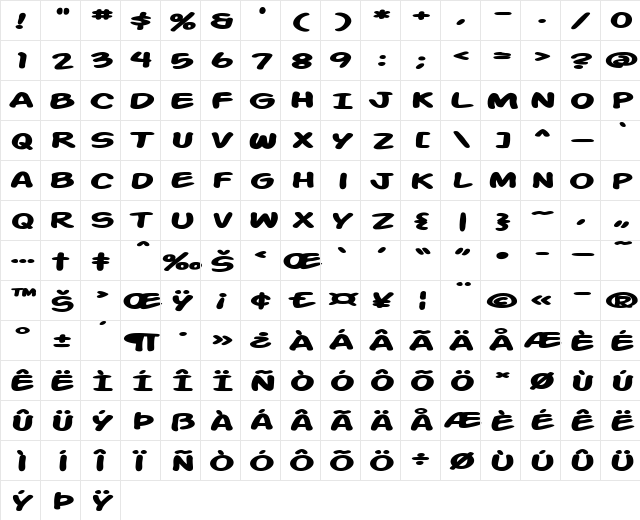
Action Man Extended Bold
Design Context for Action Man Extended Typeface
Action Man Extended is a composed and adaptable typeface that performs quietly and consistently across a wide range of design contexts. The heavy weight commands attention and anchors typographic hierarchies.